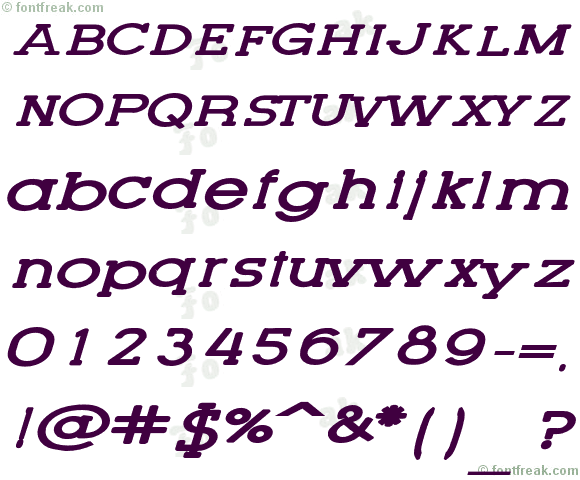
Lettering Set New Italic
About Lettering Set New Italic
Lettering Set New Italic is a distinctive display font designed by Galdino Otten Fonts, falling under the category of decorative typefaces. This font exhibits a unique italic style that adds a dynamic flair to any project. Its letters feature a moderate stroke weight combined with a playful contrast, making it visually engaging without compromising legibility. The spacing is well-balanced, allowing for clarity while maintaining an artistic touch. The decorative elements of the font, such as its slight slant and unique letterforms, provide a contemporary feel, making it ideal for creative applications.
This font is particularly well-suited for various use cases. It shines in wedding invitations, where its elegance can add a personal touch to the special day. Additionally, it works beautifully for movie posters, capturing attention with its bold presence. Restaurant menus can benefit from its stylish aesthetics, creating an inviting atmosphere for diners. Graphic designers and content creators will find it valuable for branding projects, giving logos and promotional materials a modern edge. Small business owners looking to elevate their marketing materials will appreciate the versatility of this font.
Targeting graphic designers, small business owners, and content creators, Lettering Set New Italic caters to those seeking to infuse their work with creativity and flair. The font's distinct character and visual appeal make it a go-to choice for anyone aiming to stand out in a crowded market.
What sets Lettering Set New Italic apart is its balance of artistic expression and functionality. With the Lettering Set New Italic font free download, users can enhance their projects with a typeface that is not only visually striking but also versatile enough to adapt to various design needs. This font is a perfect blend of style and practicality, making it a valuable addition to any designer's toolkit.